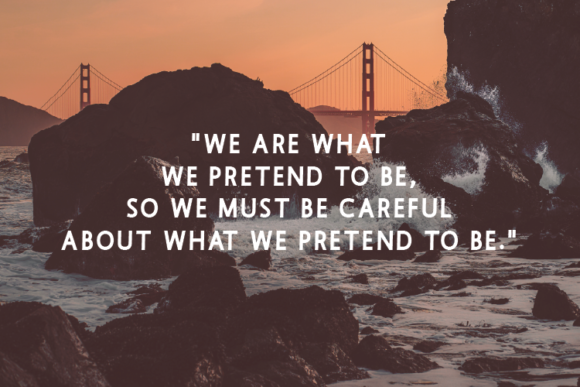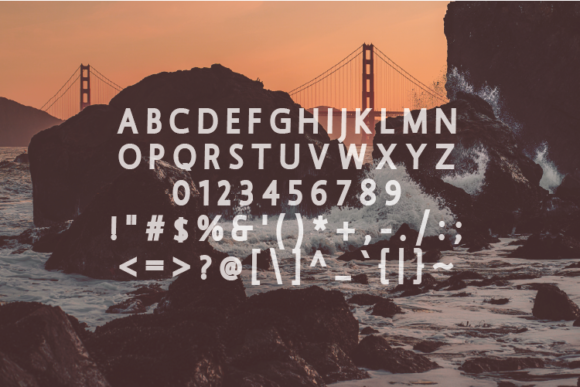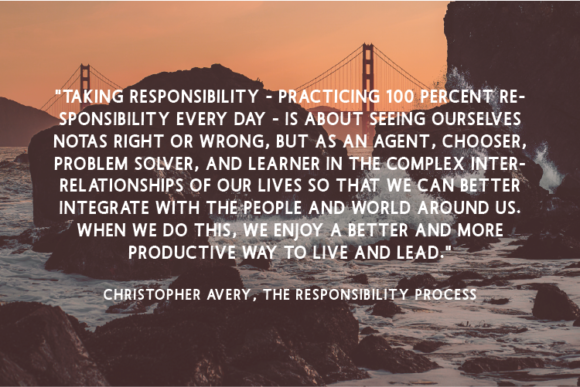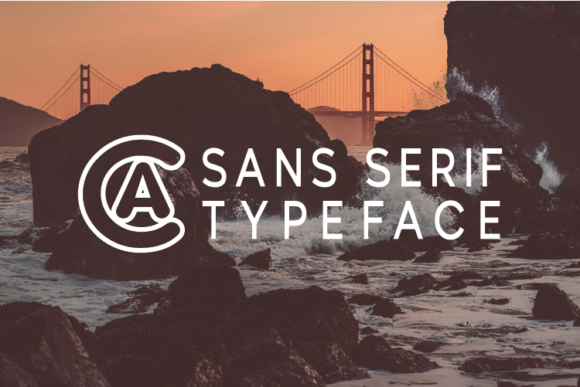
Introducing Florilla Font: The Ultimate Modern Sans Serif Typeface
Are you a designer or crafter looking for a versatile and stylish font to elevate your creative projects? Look no further than Florilla Font, a modern and classy sans serif typeface that’s perfect for a wide range of applications. From logos and weddings to invitations, quotes, advertisements, print, magazines, and more, Florilla Font is the ultimate choice for those who value clean design and precision typography.
What Makes Florilla Font So Special?
Florilla Font is a modern sans serif typeface that’s been carefully crafted to provide a clean and elegant look that’s perfect for both digital and print applications. Its sleek lines, precise curves, and balanced proportions make it an extremely versatile font that’s suitable for a wide range of creative projects. Whether you’re designing a logo, creating a wedding invitation, or crafting a quote for social media, Florilla Font is the perfect choice.
Key Features of Florilla Font
• Modern and Classy Design: Florilla Font boasts a sleek and contemporary design that’s perfect for those who value clean lines and precision typography.
• Extremely Versatile: This font is suitable for a wide range of creative projects, from logos and weddings to invitations, quotes, advertisements, print, magazines, and more.
• Easy to Read: Florilla Font features clear and precise letterforms that make it easy to read, even at small sizes.
• Highly Legible: The font’s balanced proportions and carefully crafted letterforms ensure that it’s highly legible, even in long blocks of text.
Use Cases for Florilla Font
Florilla Font is an incredibly versatile typeface that can be used in a wide range of creative projects. Here are some examples of how you can use this font to elevate your designs:
• Logos: Create a professional and modern logo for your business or brand with Florilla Font.
• Weddings and Invitations: Use Florilla Font to create beautiful and elegant wedding invitations, save-the-date cards, and other stationery.
• Quotes and Social Media: Add a touch of class and sophistication to your quotes and social media posts with Florilla Font.
• Advertisements: Use Florilla Font to create eye-catching and effective advertisements for print, digital, or social media.
• Print and Magazines: Florilla Font is perfect for use in print publications, such as magazines, brochures, and catalogs.
Why Choose Florilla Font?
With so many fonts available, why choose Florilla Font for your creative projects? Here are just a few reasons why Florilla Font stands out from the crowd:
• Unique and Modern Design: Florilla Font features a unique and modern design that’s sure to make your creative projects stand out.
• High-Quality Typography: The font is carefully crafted to provide high-quality typography that’s perfect for both digital and print applications.
In conclusion, Florilla Font is a modern and classy sans serif typeface that’s perfect for a wide range of creative projects. Its versatility, elegance, and precision typography make it an excellent choice for designers and crafters who value clean design and high-quality typography. Whether you’re creating a logo, wedding invitation, quote, advertisement, or print publication, Florilla Font is the ultimate choice. So why wait? Download Florilla Font today and take your creative projects to the next level!